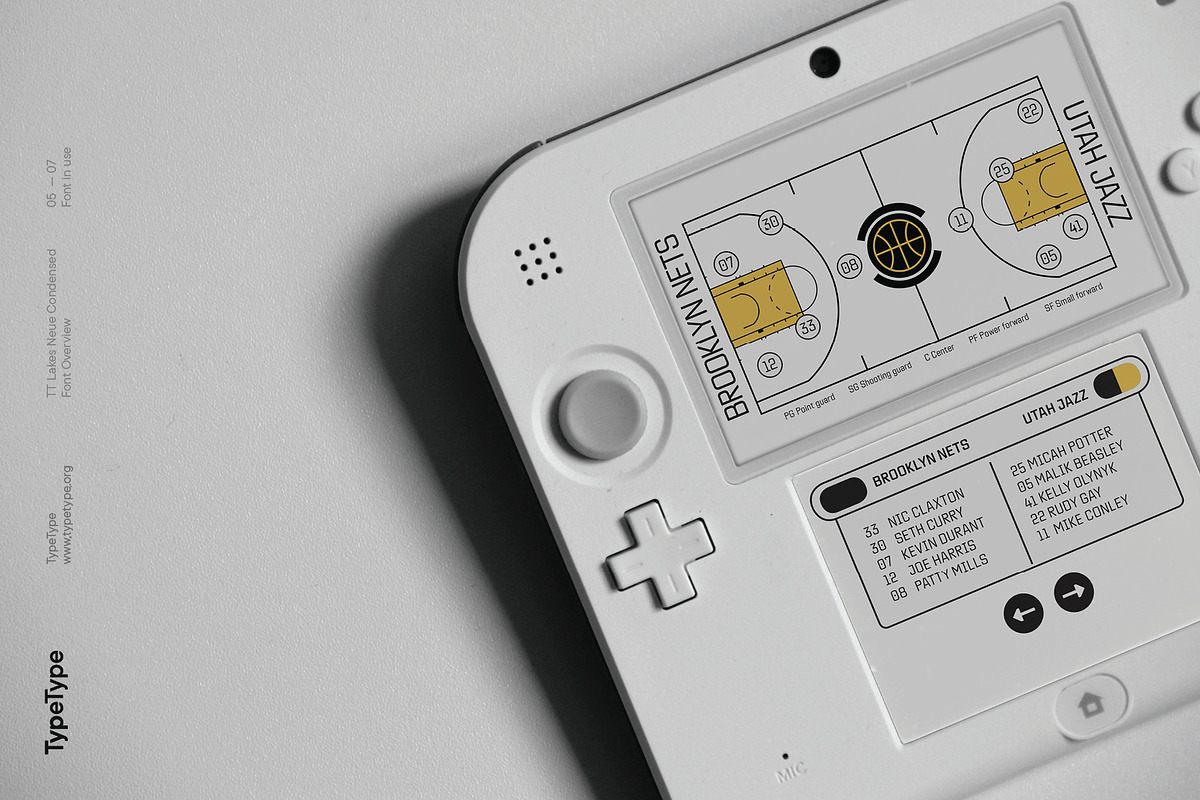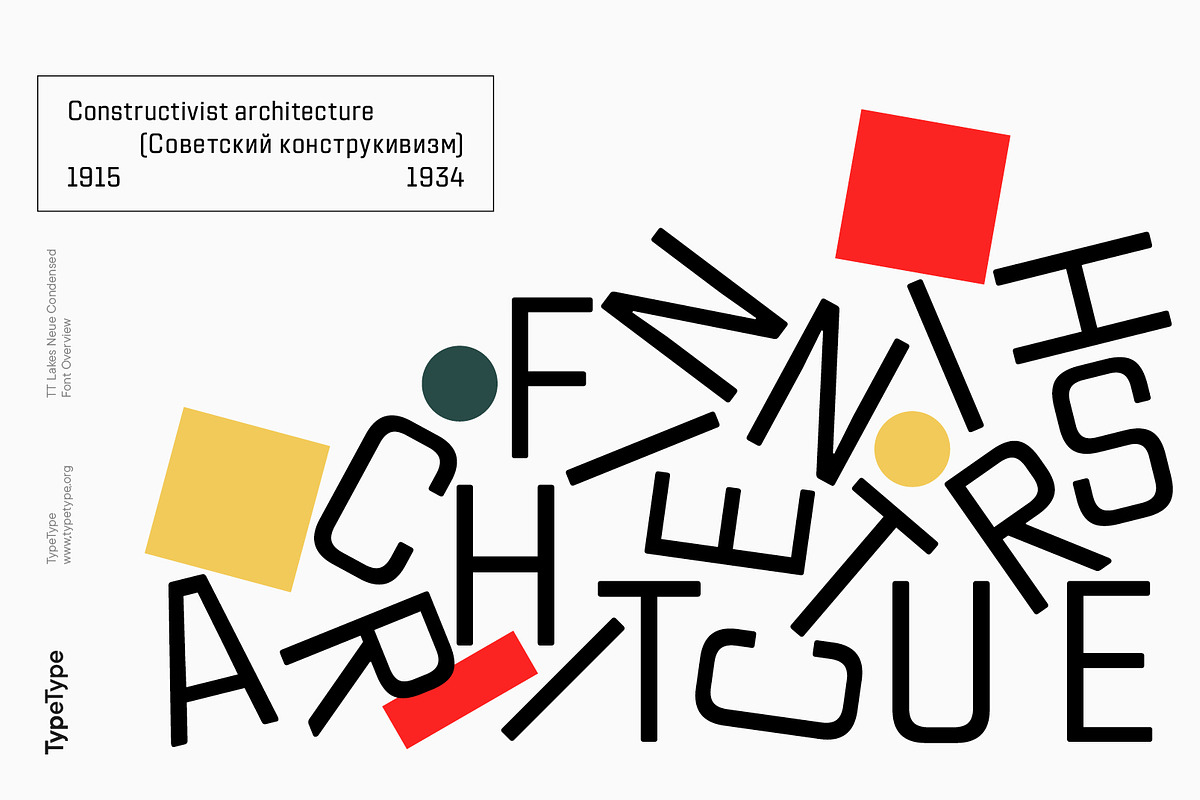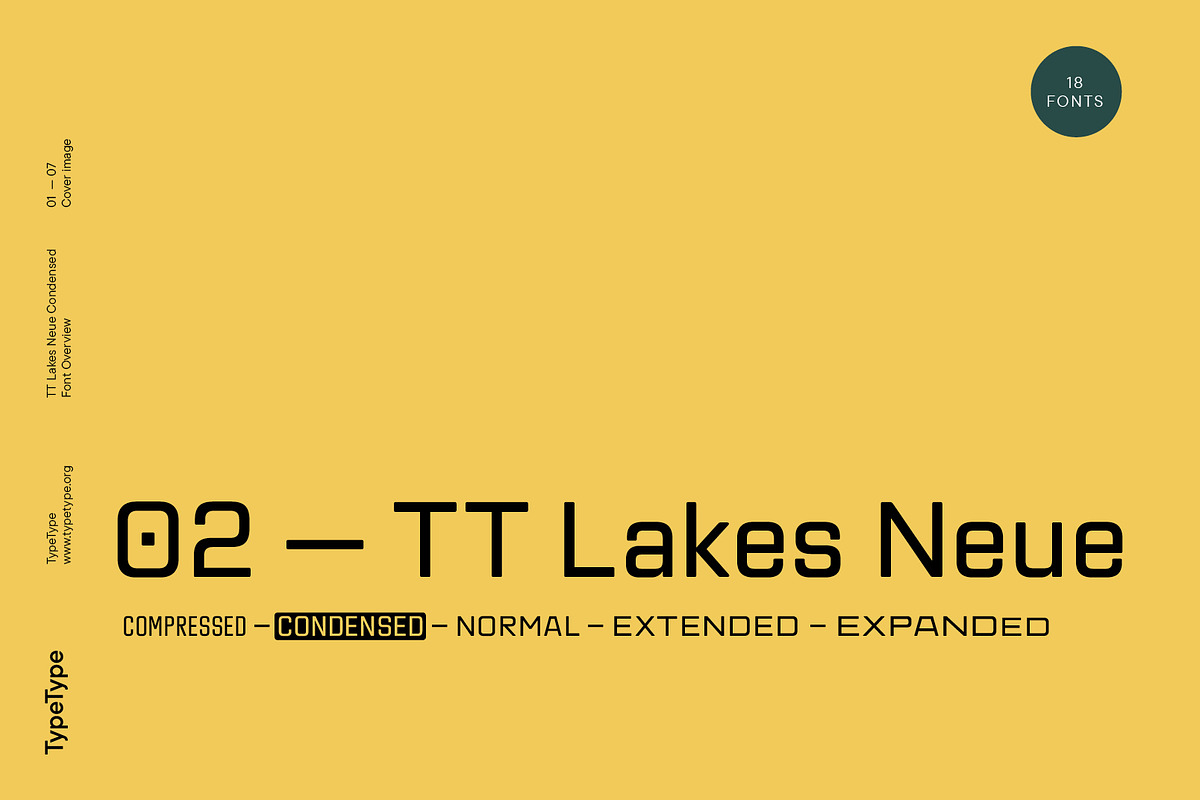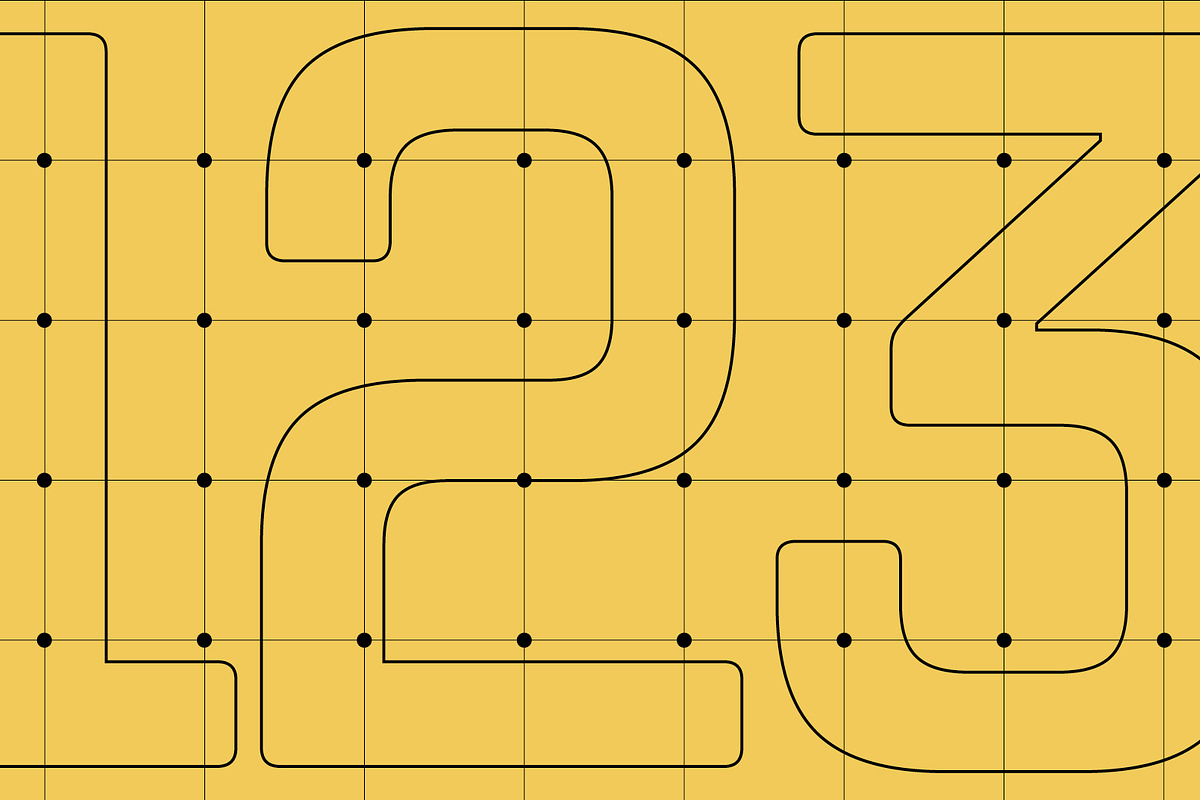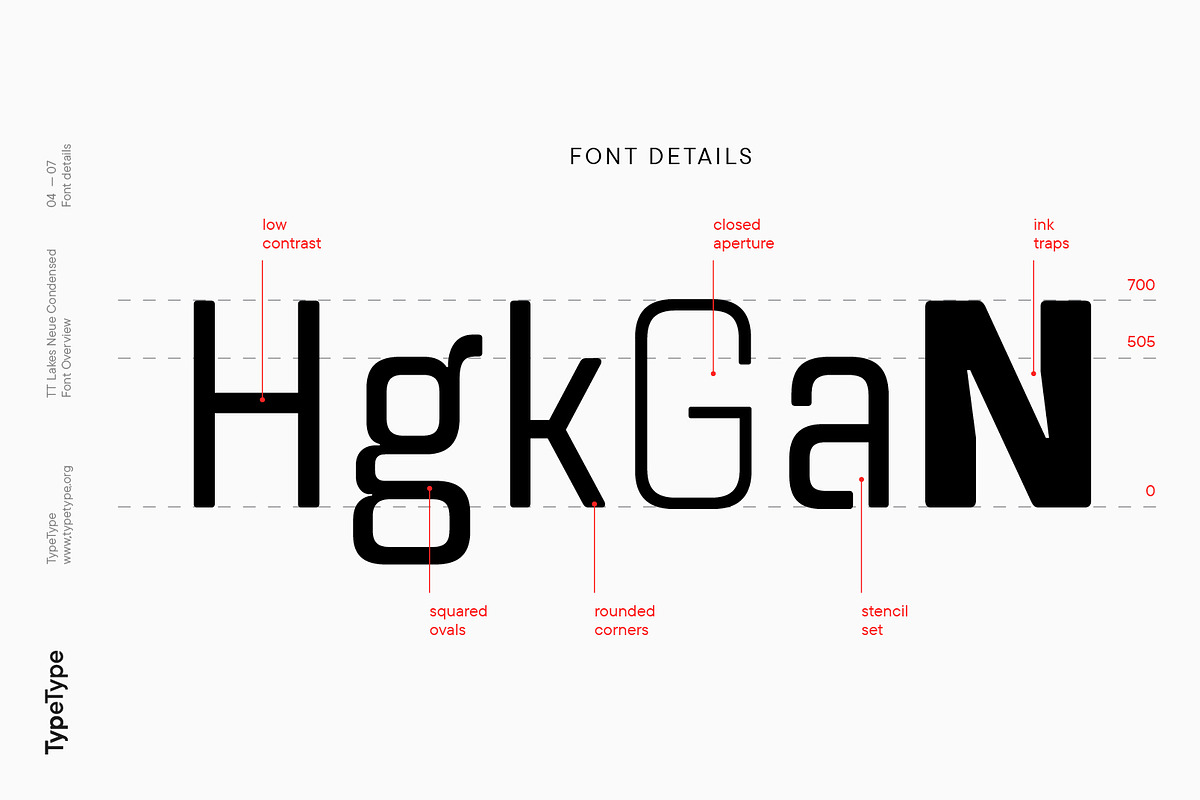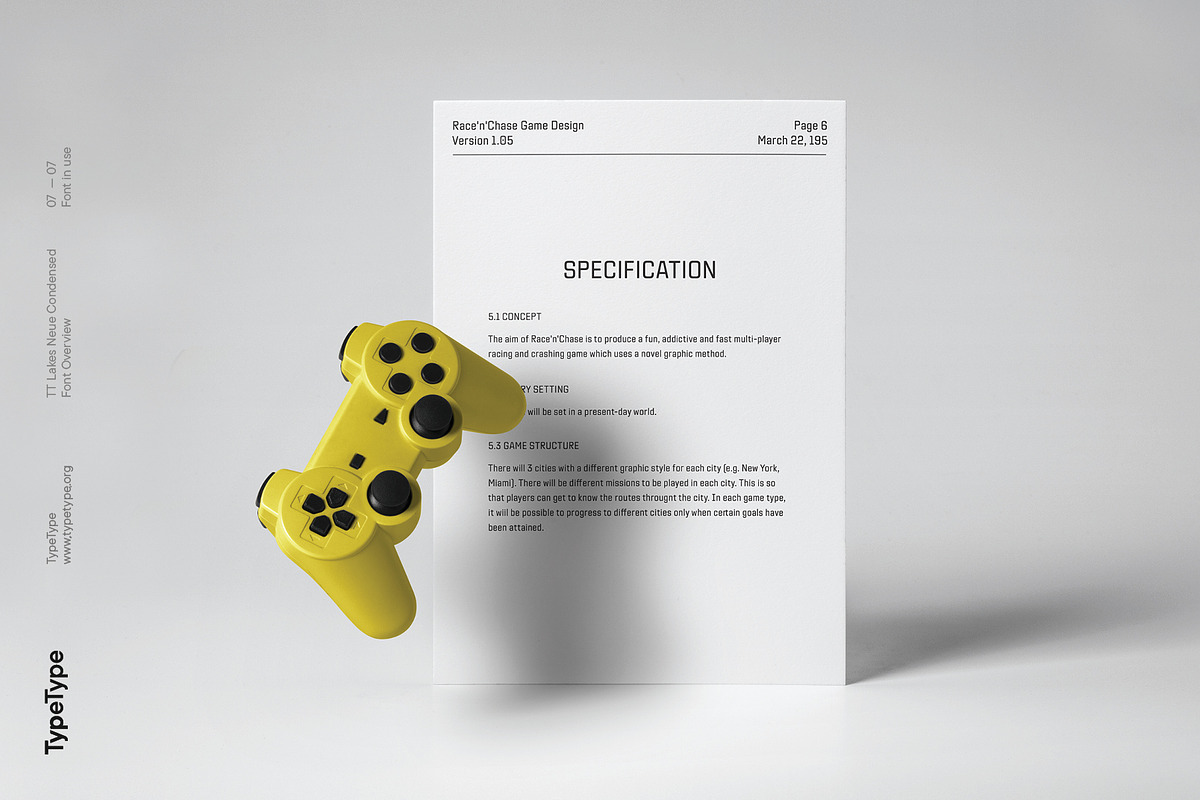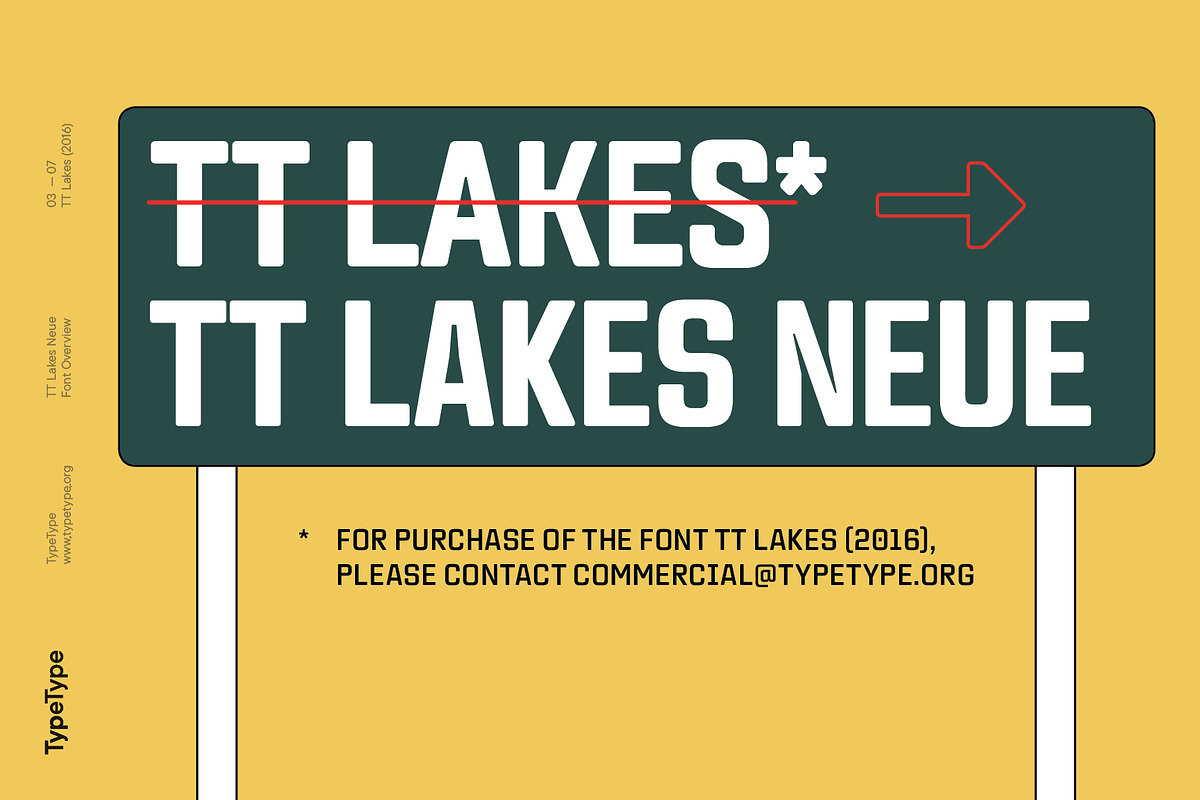
TT Lakes Neue Condensed
TT Lakes Neue Condensed is a Condensed version of our TT Lakes Neue font family https://creativemarket.com/typetype/6095663-TT-Lakes-Neue
Introducing TT Lakes Neue in version 2.0!
We have released a continuation of the geometric sans serif inspired by Finnish functionalism. The new version provides more opportunities, because we not only increased the character set and improved the font technically, but also reworked its visual character.
The TT Lakes Neue font has 5 subfamilies: Compressed, Condensed, Regular, Extended, Expanded.
- Condensed
- In total, there are 91 styles in the font: 9 upright and 9 slanted in each subfamily and 1 variable font. - Each style has 921 characters and 36 OpenType features**.
- Supports 210+ languages (incl. Cyrillic)*
What changed?
Font character. TT Lakes Neue 2.0 has become calmer, as we have removed the display details in the characters of the main set, making the font more versatile. New stylistic sets were created, thanks to which the nature of the font can be controlled, making it more expressive.
- Changed the forms of the characters ""Кк"", ""ЖЖ"", ""Дд"", ""Лл"", lowercase ""b"" and alternative ""g"".
- Added alternative forms for all types of the number ""1"", for the characters ""Mm"", ""DD"", ""Ll"".
- Added technological character sets, with which the font looks stylish and expressive. You may notice that in these sets, the forms of lowercase characters with arches (r, m, n) are changed, and there are gaps in the places of infusions and connections of all characters.
Scope of application. The scope of TT Lakes Neue 2.0 have become even more diverse, because the sans serif has become more neutral in character and more functional.
- TT Lakes Neue 2.0 is the perfect font for the gaming industry. Suitable for game interfaces of different genres.
- Technological sets can be used in architectural projects, in the headlines of posters and magazines, on outdoor signs.
- The font is suitable for logo design, looks great in branding.
Character set and technical characteristics. We have significantly improved the set of the font, increasing the number of characters from 736 to 921. The font has become more functional due to the updated technical stuffing and new features, of which there are now 36 instead of 24.
- Added characters of extended Latin, fractions, arrows.
- Created new kerning and hinting.
- Updated variable font.
- Added new OpenType features.